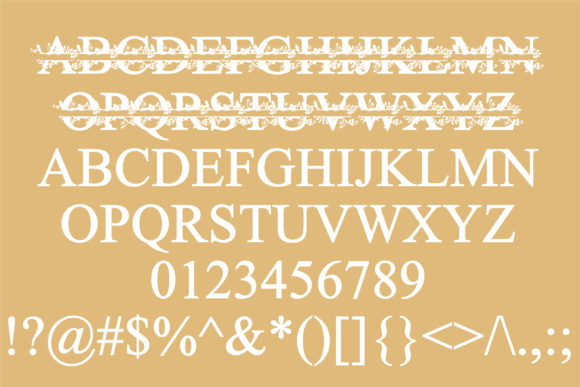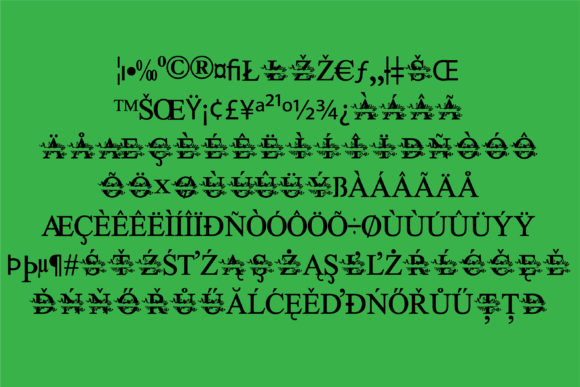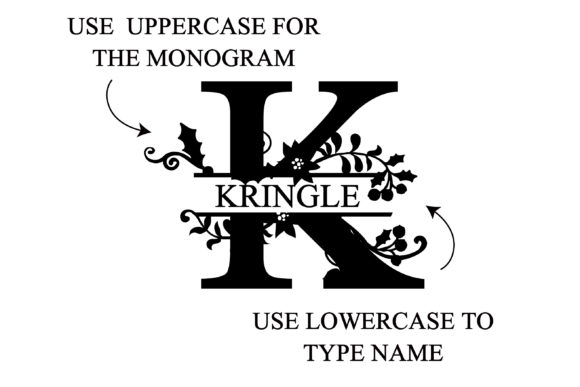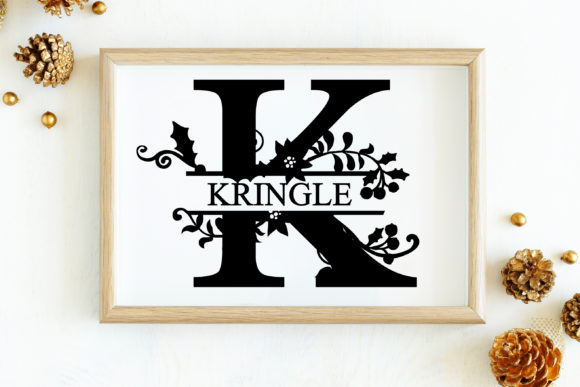
The Magic of Christmas Floral Font: A Designer’s Delight
It’s the most wonderful time of the year, and as designers, we’re often on the lookout for that perfect font to make our holiday projects shine. I still remember the year I was working on a Christmas card design for a client, and I just couldn’t find the right font to capture the festive spirit. That’s when I stumbled upon the Christmas Floral Font, and it instantly became my go-to for all things merry and bright.
A Personal Review: What I Love and What to Watch Out For
- Unique and elegant monogram designs perfect for holiday crafts and projects ✅
- Easy to use and combine with other fonts for a personalized look 💕
- Perfect for creating custom banners, invitations, and decorations 🎉
Small Quirks to Keep in Mind 🤔
- Limited use for regular typing, as it’s designed specifically for crafts and monograms ⚠️
- May require some exploration to get the hang of using OpenType features and glyphs 🔍
The Story Behind Christmas Floral Font
Legend has it that Christmas Floral Font was designed by a talented type designer who wanted to create a font that would capture the essence of the holiday season. Inspired by traditional monogram designs and vintage floral patterns, the font was crafted with love and care to bring a touch of elegance to holiday projects.
Q: What is the best way to use Christmas Floral Font?
A: The best way to use Christmas Floral Font is to create custom monograms and banners for holiday projects. Simply type your monogram letter using the uppercase and pair it with a word in lowercase for a beautiful, cohesive look.
Q: Is Christmas Floral Font suitable for beginners?
A: Absolutely! Christmas Floral Font is easy to use and requires minimal technical expertise. With a little practice, beginners can create stunning monograms and holiday designs.